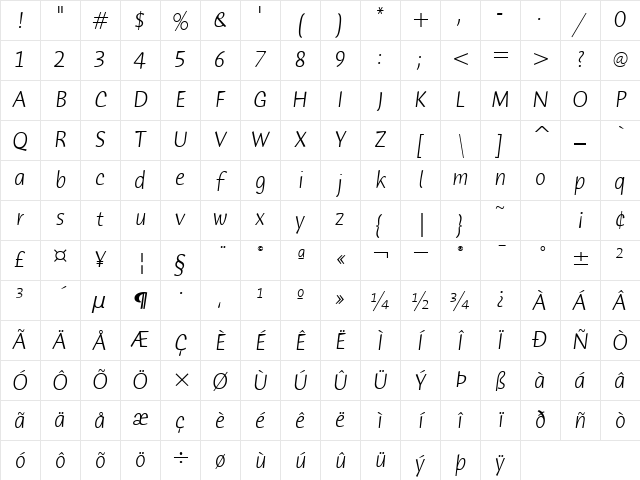
Complete Humana Sans ITC TT LightItalic glyph index. Displaying only characters natively supported by Humana Sans ITC TT LightItalic font.
Humana Sans ITC TT is a composed and adaptable typeface that performs quietly and consistently across a wide range of design contexts. The slanted form adds forward momentum and visual energy. Its slender proportions lend an understated elegance to any composition.